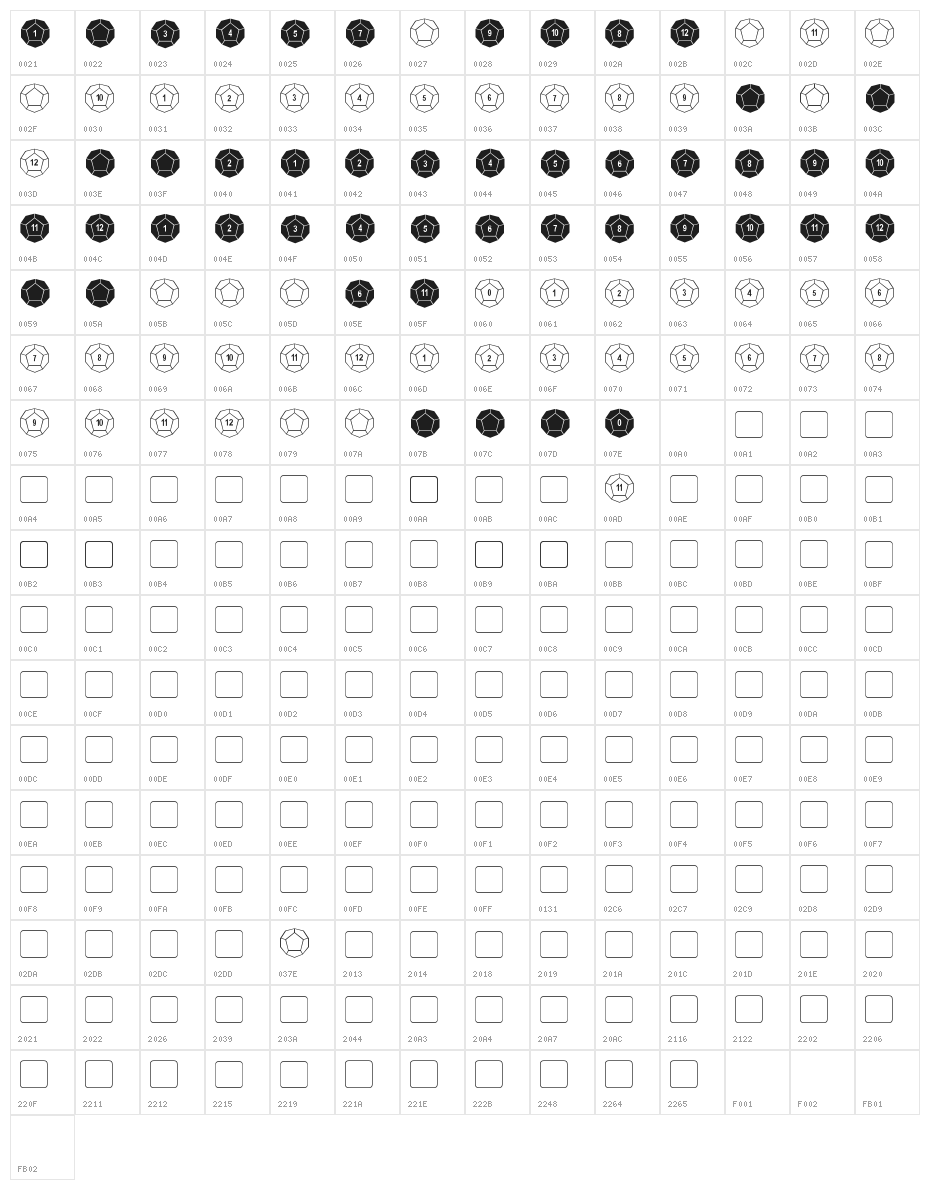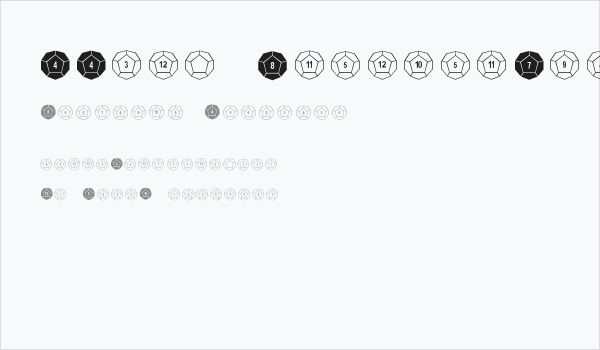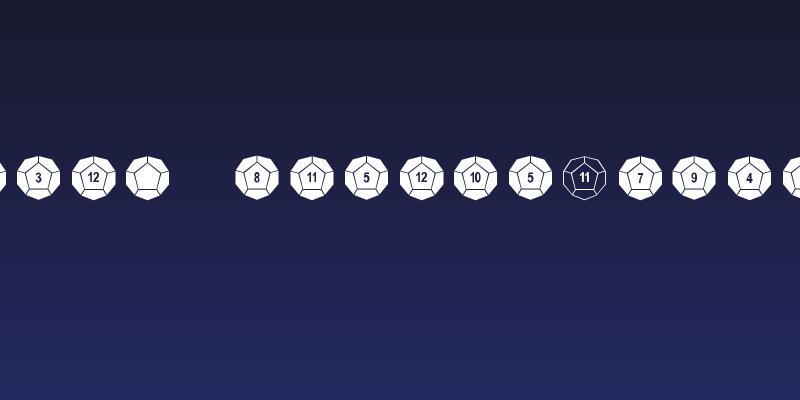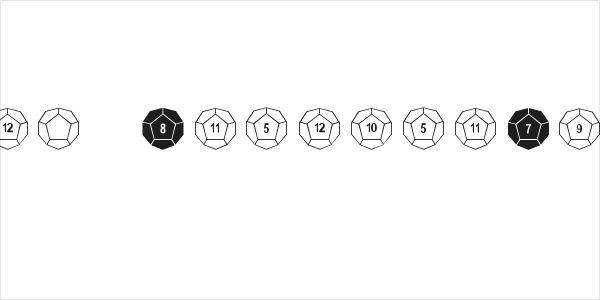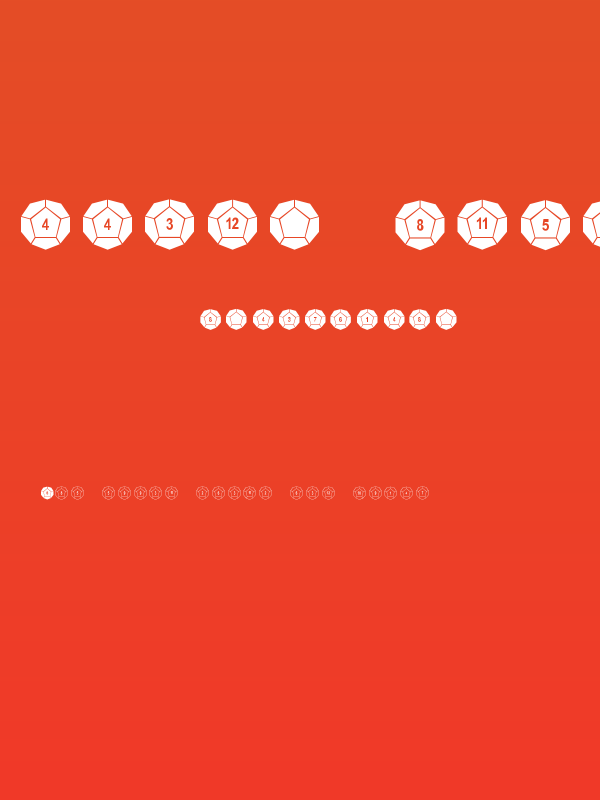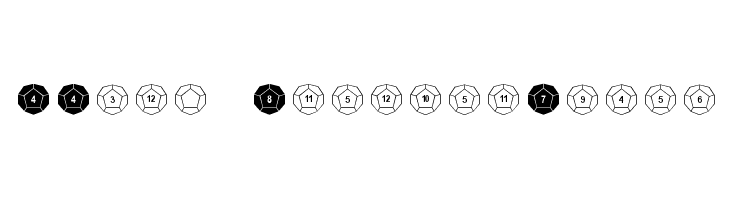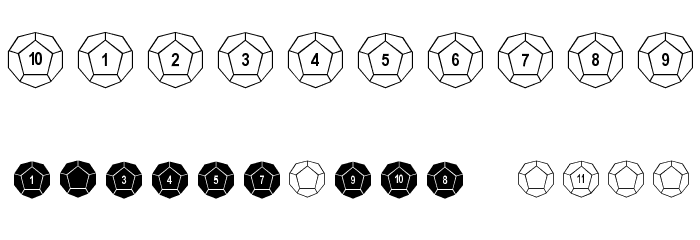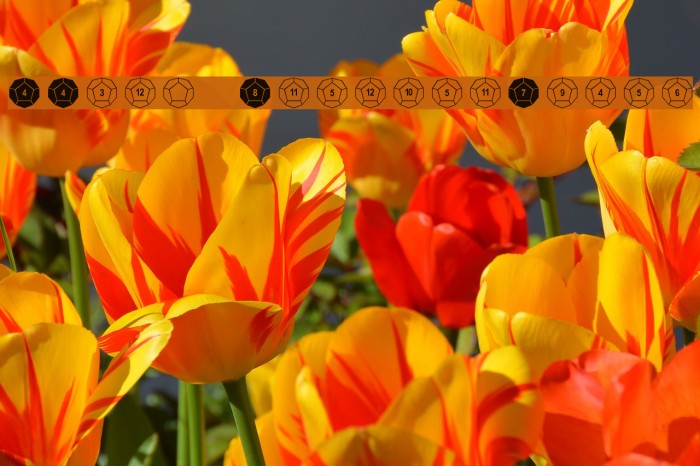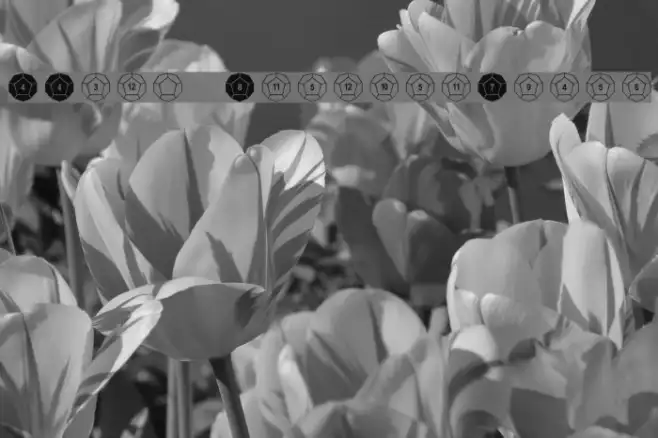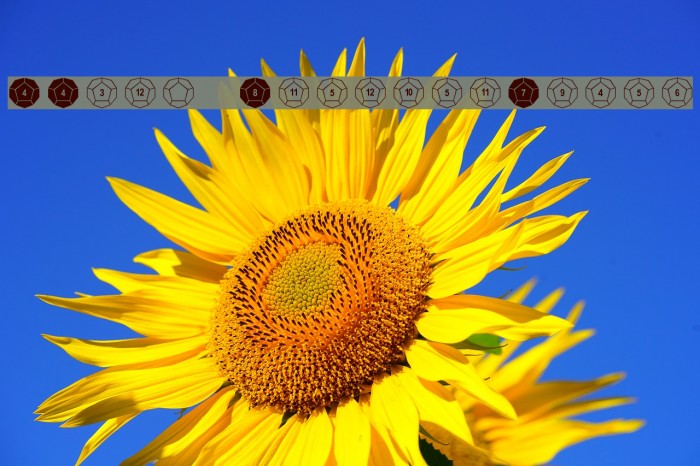
DPoly Twelve-Sider Font
DPoly Twelve-Sider Description
A decorative font where each numeral is enclosed within a twelve-sided polygon, mimicking the appearance of a twelve-sided die (d12). The numerals are centered and clear, with both filled and outlined polygon styles presented. The font is highly geometric and thematic, suitable for gaming or playful contexts.
| Overall Style | Decorative, Playful, Geometric |
| Use Case | Game design, Themed headings, Posters, Educational materials |
| Proposed Projects | Board games, tabletop RPG materials, educational math games, playful infographics, themed event invitations. |